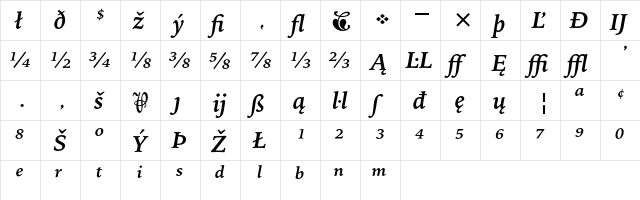
Design Context for Bitstream Iowan Old Style Typeface
Bitstream Iowan Old Style takes a measured approach to typography — its balanced proportions and neutral character make it a reliable workhorse for both digital and print work. The dynamic lean of this cut emphasises speed and emphasis in any layout. Its bold stroke weight gives it real presence on the page.
Pro Tip: Try Bitstream Iowan Old Style for annotation and caption copy alongside an upright companion — the contrast in angle creates a dynamic but ordered typographic system.